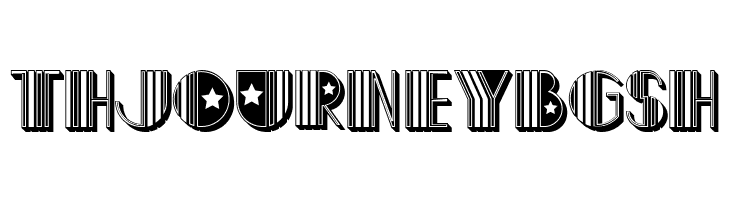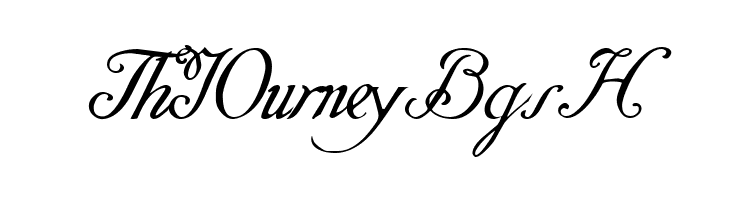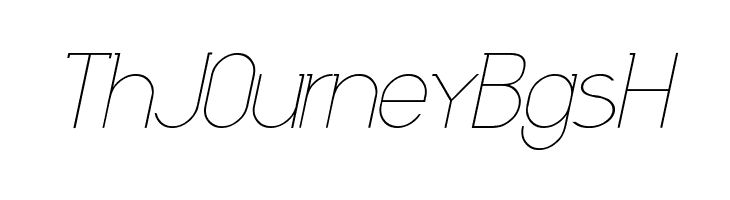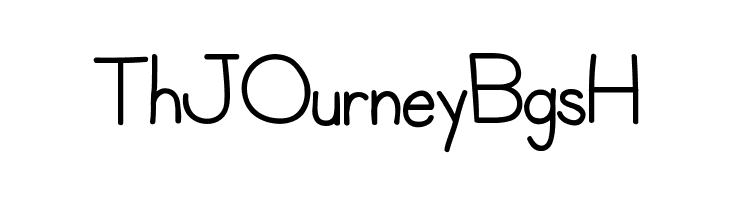
• Daniel Deluxe
A playful, rounded, and handwritten-style font.
• Daniela Italic
A sleek, elegant italic font with thin, elongated letterforms and a modern aesthetic.
• Daniela Italic
A sleek, modern italic font with thin, elongated characters.
• Daniela Italic Bold
A modern, bold italic font with sleek, elongated characters.
• Daniela Italic Bold
A sleek, italicized font with a modern and elegant style.
• Danley
• Danseuse Regular
A bold, decorative font with striped patterns and star motifs.
• Darah Erc
A bold, dripping font ideal for horror themes.
• Daresiel Demo
• Dark Alley
( Fonts by Blackletter Studio )
A bold, gothic-inspired font with intricate details and high contrast, perfect for dramatic and elegant designs.